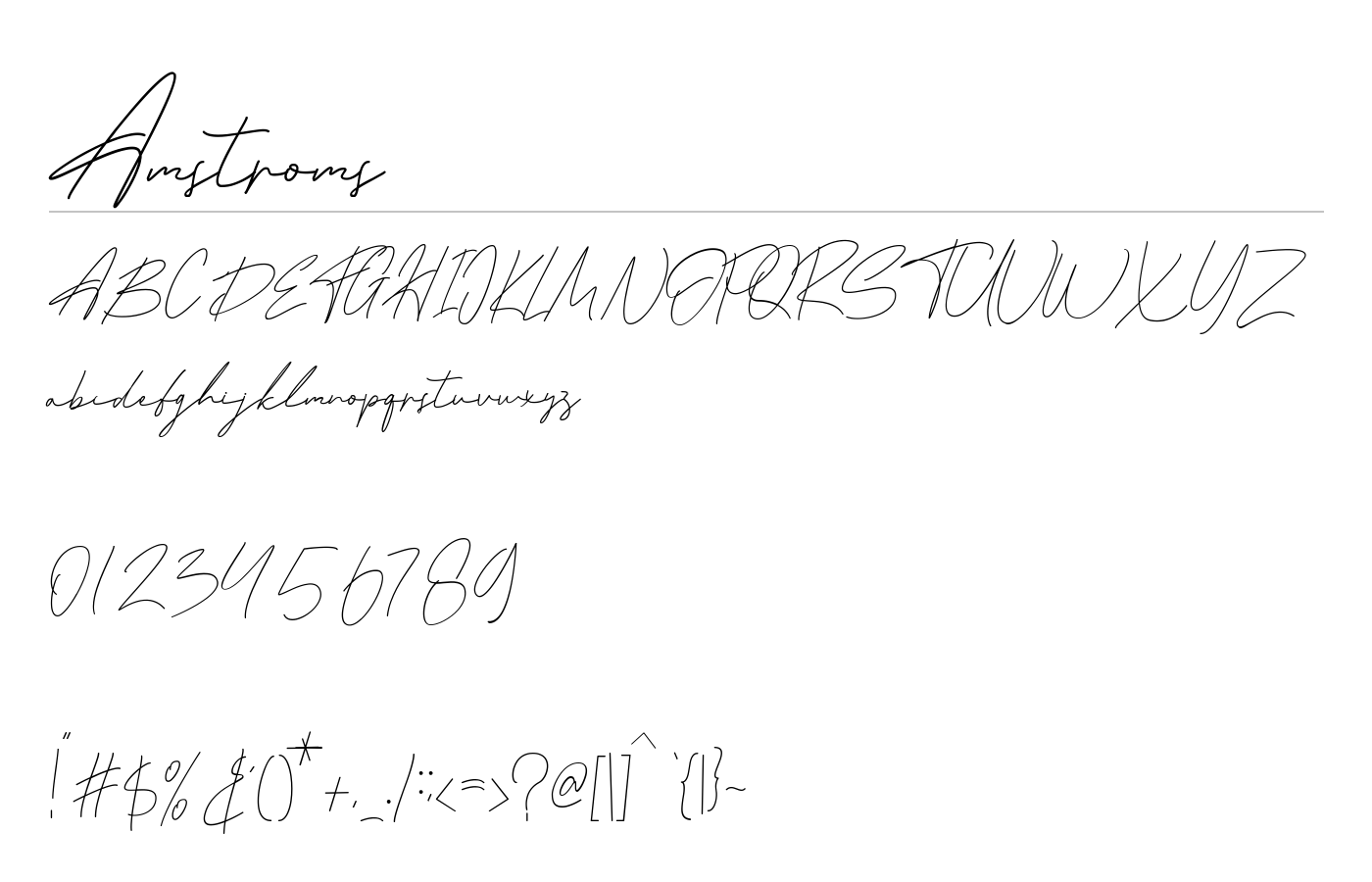
Amstroms is a delicate, handwritten script font characterized by its thin, flowing lines and elegant, airy style. Its natural, casual feel makes it perfect for personal branding, invitations, or creative projects that want to convey a sense of sophistication and approachability. This font works best in designs where a graceful, handcrafted touch is needed to add charm without overwhelming the overall look.
Amstroms Font
About Amstroms Font
| Font family | Amstroms Font |
| Designer | Candra Hamdani |